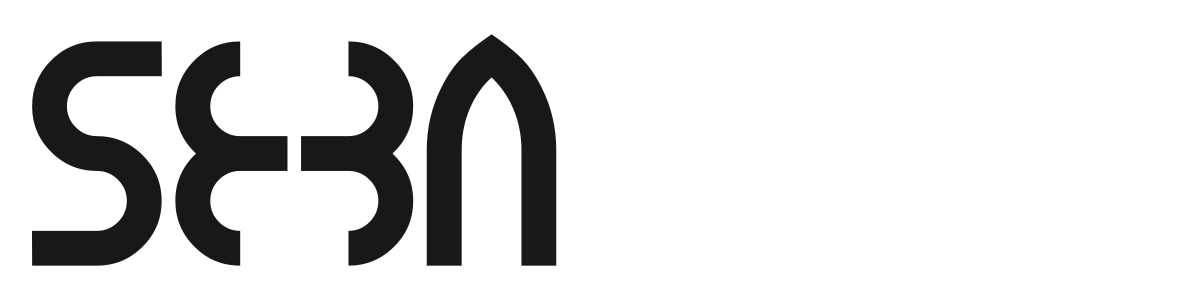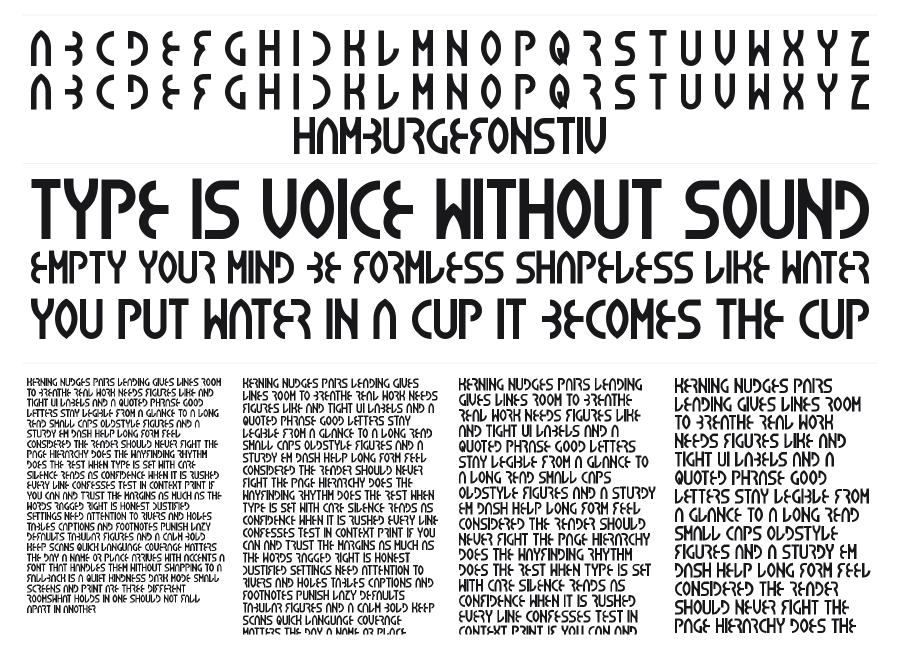
Seba
Seba is a bold geometric display sans built from modular, uniform-weight strokes with angular cutaways and constructivist structure. The design draws from 1920s-1930s avant-garde typography, where letters feel assembled rather than drawn. Best used large, where its graphic weight and distinctive notched architecture can fully land.